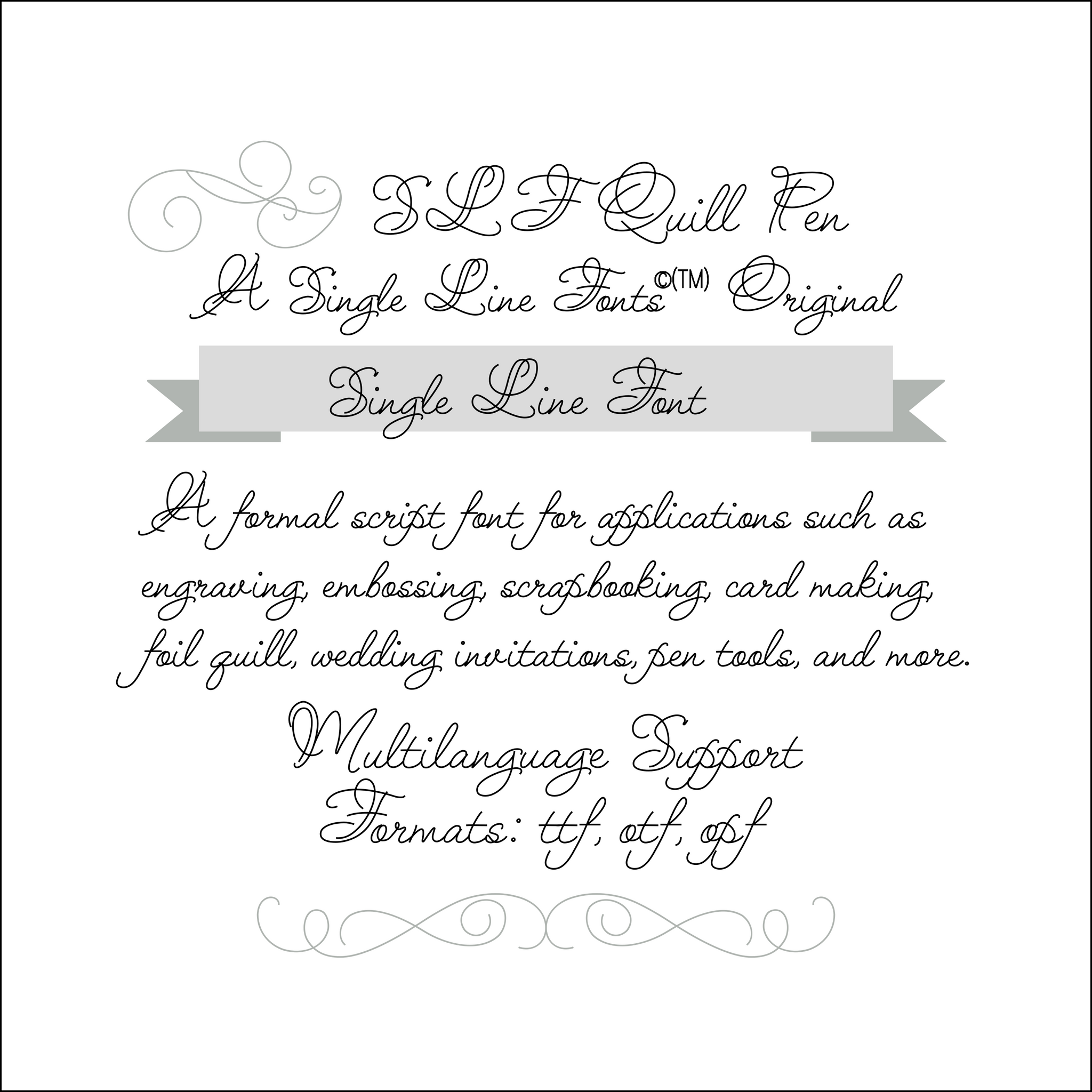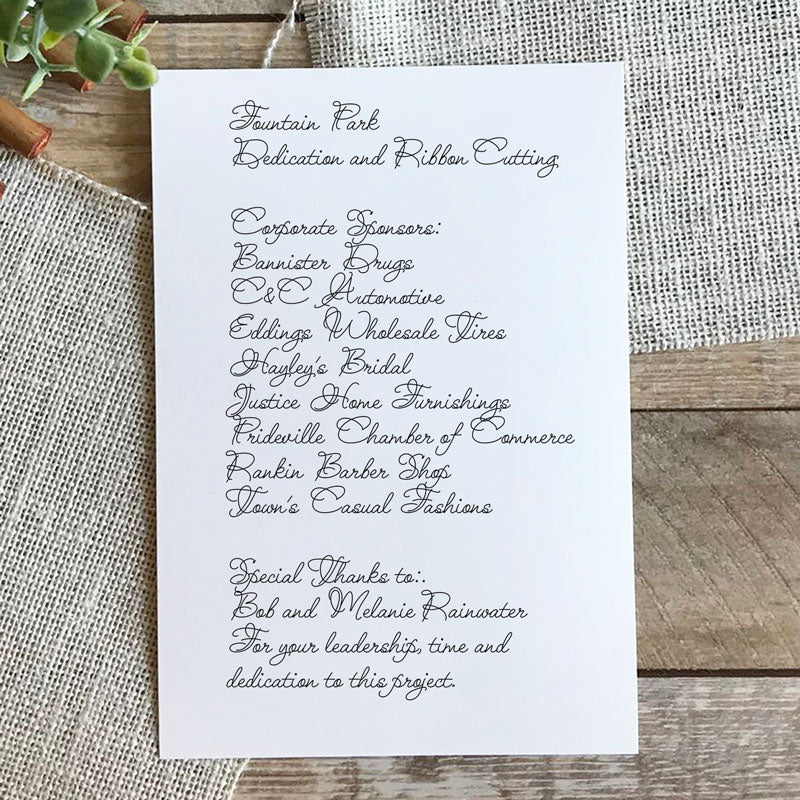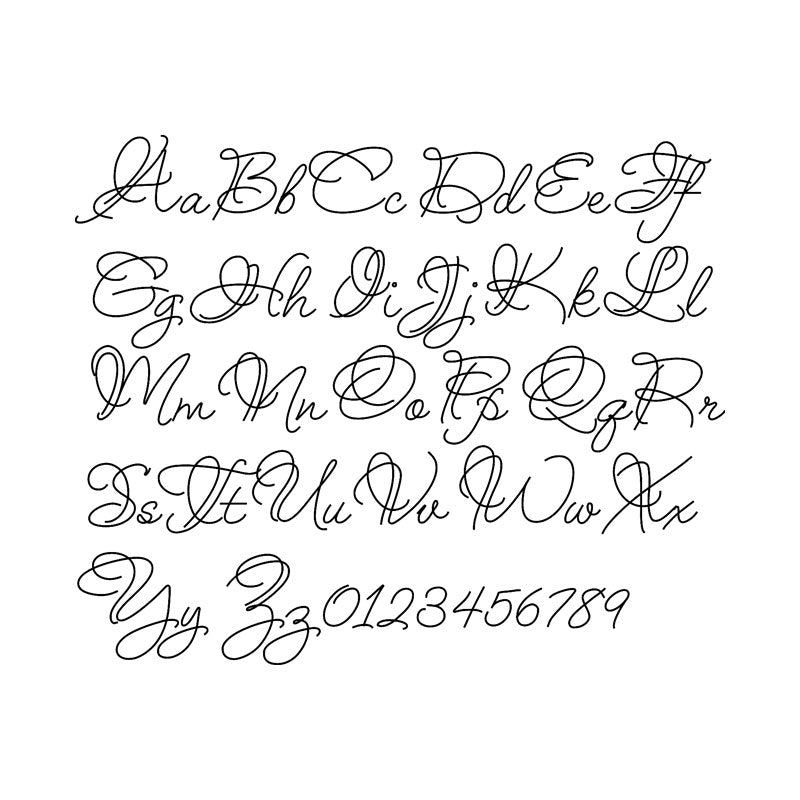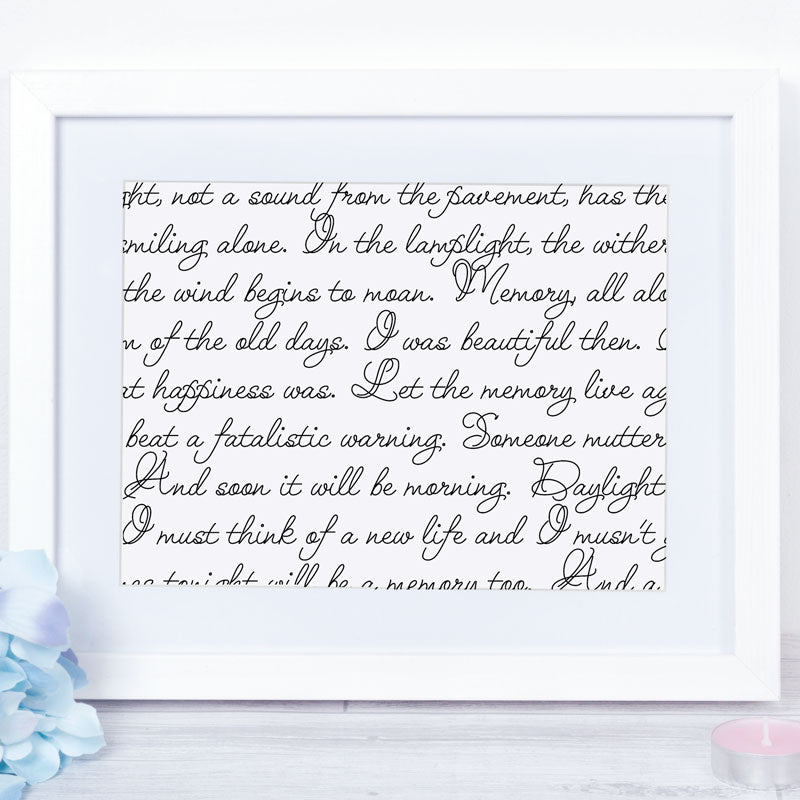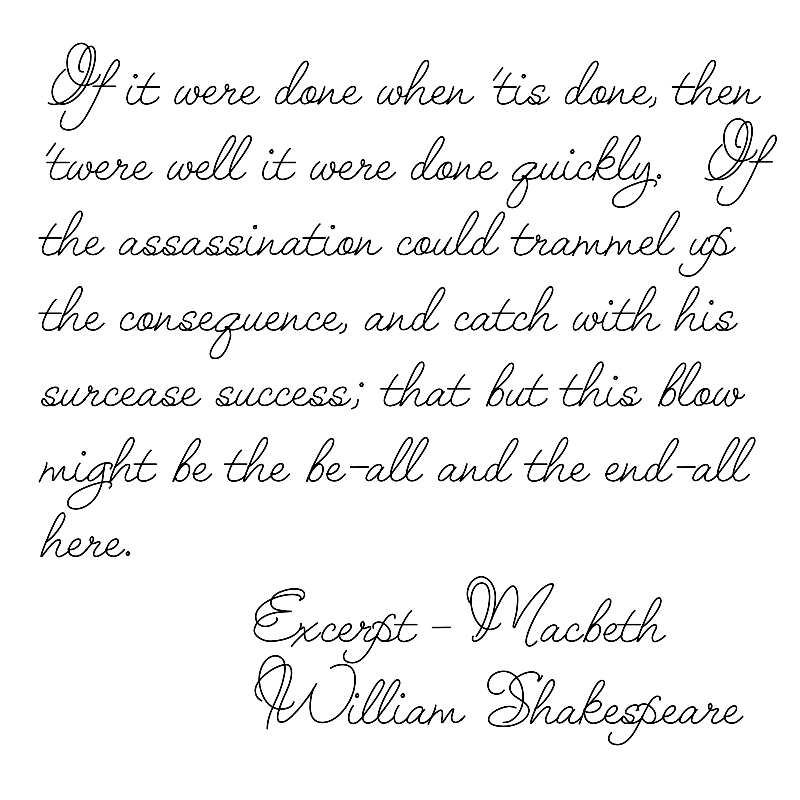
Single Line Font "SLF Quill Pen"
SLF Quill Pen
This single line font brings to mind olden times when pen and ink quills were used.  Each letter flows smoothly into the next for flawless results on every project.  Engravers, this opens up a brand new and unique option for customizing bracelets lockets, charms, and more.  For crafters using pen tools, embossing tools, and foil quilling tools, Quill Pen gives your projects a rich and elegant touch.